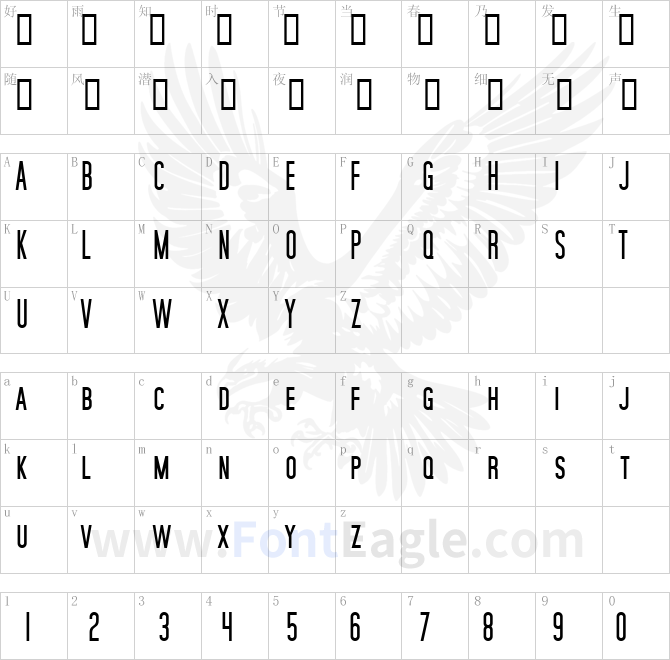
SF-Movie-Poster-copy-1- is a great font, widely used in graphic design, single-page menu design, poster design and other fields, and is deeply loved by designers.SF-Movie-Poster-copy-1- download.